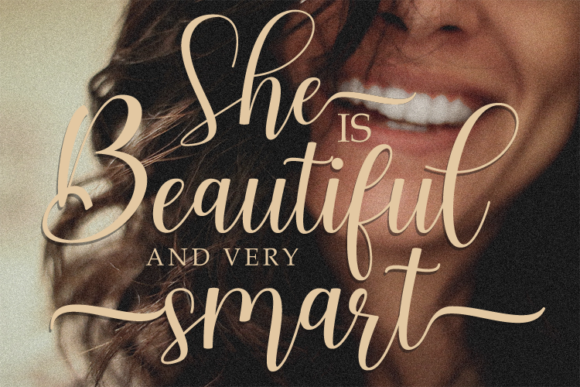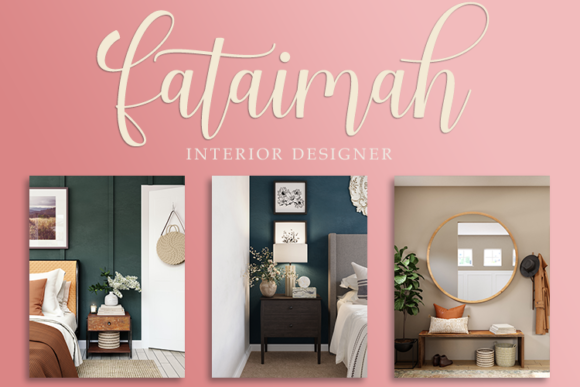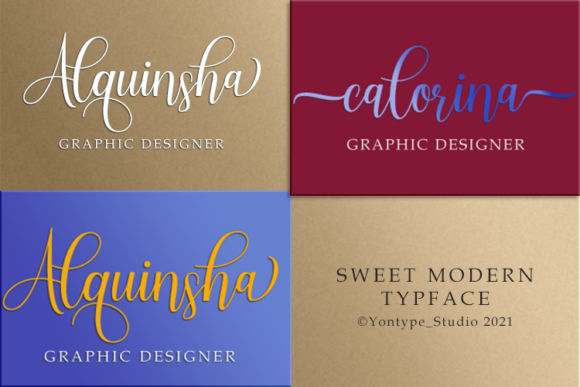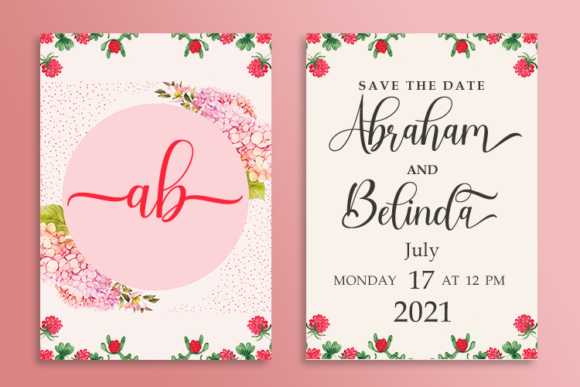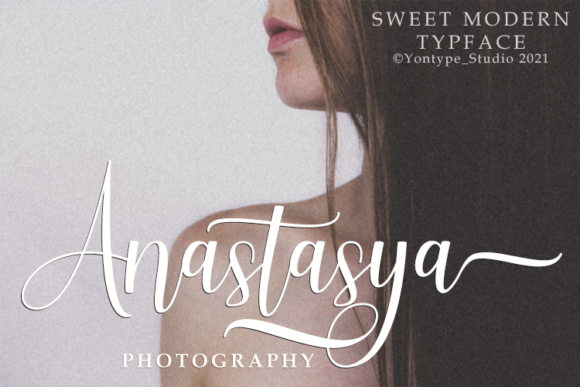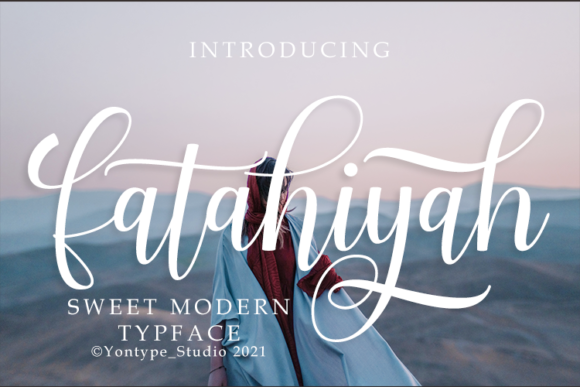
Fatahiyah Font: Elevate Your Designs with Elegance and Sophistication
In the world of typography, a font can make or break a design. For designers and crafters seeking to add a touch of luxury and refinement to their projects, Fatahiyah Font is an exceptional choice. This chic, refined script font embodies sophistication and elegance, making it the perfect match for a wide range of applications.
The Essence of Fatahiyah Font
Fatahiyah Font is designed to bring a level of elegance and poise to any design. Its stylish alternates and ligatures are thoughtfully crafted to provide a unique and personalized touch, setting it apart from more basic fonts. Whether you’re working on a branding project, packaging, or digital content, Fatahiyah offers the versatility and sophistication needed to make your work stand out.
Key Features of Fatahiyah Font
- Stylish Alternates and Ligatures: The font includes a variety of stylish alternates and ligatures. These features enable designers to customize their text, creating a more dynamic and visually appealing layout. Whether you want to emphasize certain words or simply add a decorative touch, Fatahiyah has you covered.
- Elegance and Versatility: Fatahiyah’s design strikes a perfect balance between elegance and versatility. It can be used for everything from high-end branding and editorial design to wedding invitations and craft projects. Its refined appearance ensures that your work will convey a sense of luxury and attention to detail.
Applications of Fatahiyah Font
The versatility of Fatahiyah Font makes it suitable for a myriad of design projects. Here are some of the areas where Fatahiyah truly shines:
- Branding and Logotypes: Create a lasting impression with a custom logo or brand identity that exudes sophistication.
- Packaging Design: Elevate your product packaging with elegant typography that stands out on store shelves.
- Wedding and Event Stationery: Add a touch of luxury to wedding invitations, menus, and other event materials.
- Digital Content: Enhance your website, blog, or social media graphics with refined typography that engages your audience.
- Crafting and DIY Projects: Perfect for crafters, Fatahiyah can be used for custom vinyl, iron-on designs, and more.
Tips for Using Fatahiyah Font
To make the most of Fatahiyah Font, consider the following tips:
- Experiment with Ligatures and Alternates: Don’t be afraid to explore the font’s features. Ligatures and alternates can add a unique touch to your designs.
- Combine with Complementary Fonts: Pair Fatahiyah with contrasting fonts to create visual interest and hierarchy in your designs.
- Adjust Size and Color: Play with the size and color of the text to create emphasis and add depth to your design.
Fatahiyah Font is a powerful tool for designers and crafters looking to infuse their projects with elegance and sophistication. Its stylish alternates, ligatures, and PUA encoding make it a versatile and user-friendly choice. Whether you’re aiming to create a stunning brand identity, beautiful stationery, or captivating digital content, Fatahiyah is sure to exceed your expectations. Discover the beauty of Fatahiyah Font and take your designs to new heights of refinement and style.